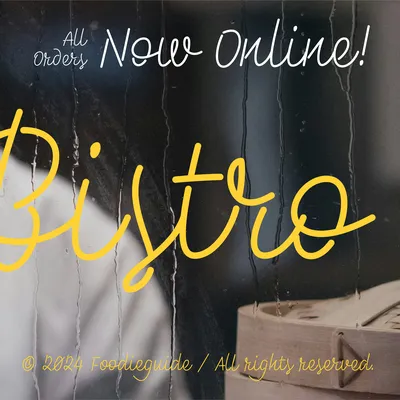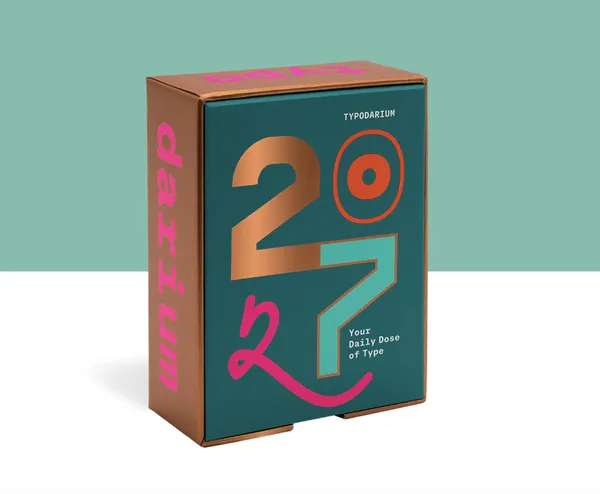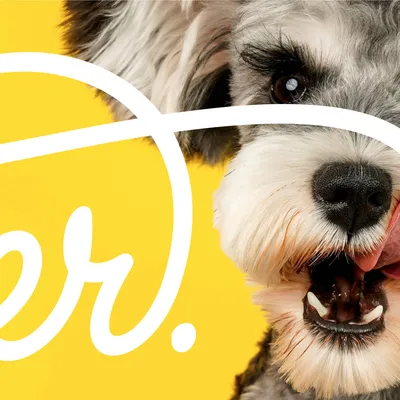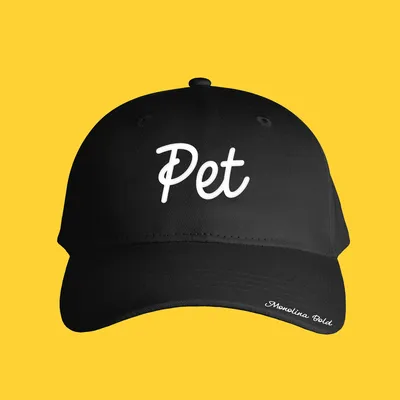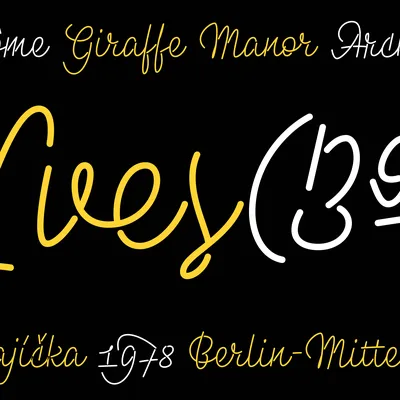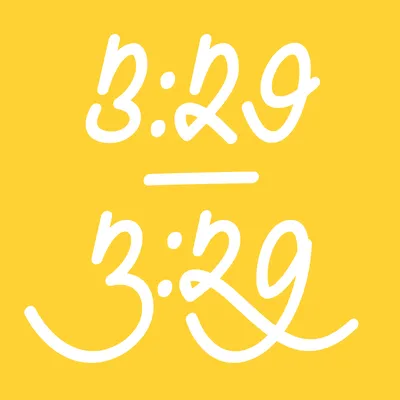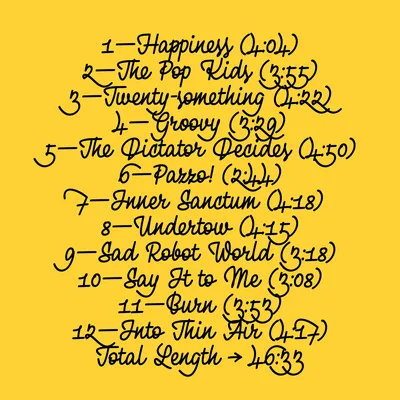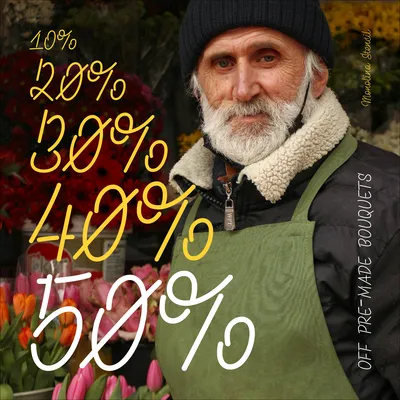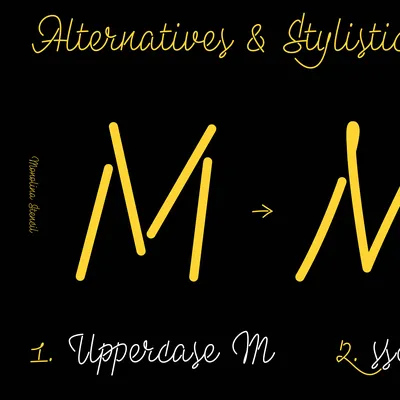
Monolina was originally designed as part of the school assignment called Bestsellers at UMPRUM in Prague. The goal was to create a typeface that would intentionally become the biggest bestseller on MyFonts. Monolina did well in the rankings and became a breakthrough typeface for me. For the first time, I digitized a script typeface based on my handwriting.
Genuinely, I sketched Monolina with a ballpoint pen at an enlarged size. I chose a ballpoint pen that allows me to control the glyph curve perfectly and keeps the monolinear stroke with zero contrast. Also, it was a replacement for standard Speedball pens, available in the Czech Republic under the brand Redispero. These were firmly attached to the original Czechoslovak advertising letterings. Due to the nib's round shape, the strokes' starts and exits are perfectly rounded. Since I wanted to stay with the single linear concept, hence the name: one-line / mono-lina.
Monolina is highly stylized but retains its wild character, which stands out, especially in the larger sizes. It's brimming with four sets of crazy uppercase, swash figures, contextual lowercase and plenty of accented ligatures, together with all neccessary characters and all sorts of symbols. After ten years, I updated Monolina to meet up-to-date technical standards. I believe I’m going to draw much better single-line script typefaces, like Dash, but this one will always remind me of my student years!
• Full Name:
PD Monolina
• Styles:
4 – Regular, Medium, Bold, Stencil
• Type design:
Petra Dočekalová
• Designed:
2014
• Classification:
Script, Cursive, Monolinear
Font in use
Monolina on cover of TYPODARIUM 2027. 365 fonts on 370 pages. The 2027 Issue carries 4 of my typefaces! Published by Verlag Hermann Schmidt Mainz. Format: 8,5 × 12 cm, Get your copy here.
Snová Ice Cream House is using Monolina typeface in entire visual identity since 2020. Design by Jan Janeček / Dizen design. I recommend to visit the store in Jihlava (Czechia)!
TV & Series Festival Serial Killer is using Monolina typeface since 2017. Design by Martin Pecina / Typomil.